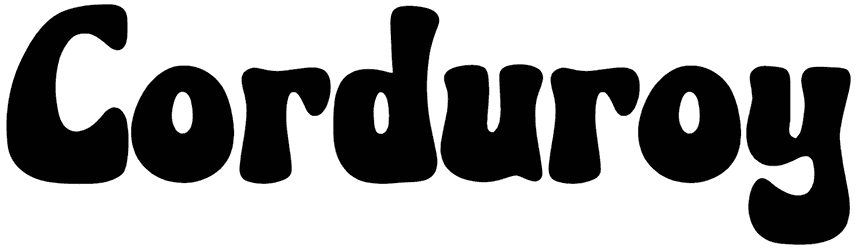
Corduroy Font
Corduroy is a groovy font that you can use to give your digital artwork a one-of-a-kind look, which can only help you in the long run. Using this fancy font in your presentation will give it a touch of chunkiness.